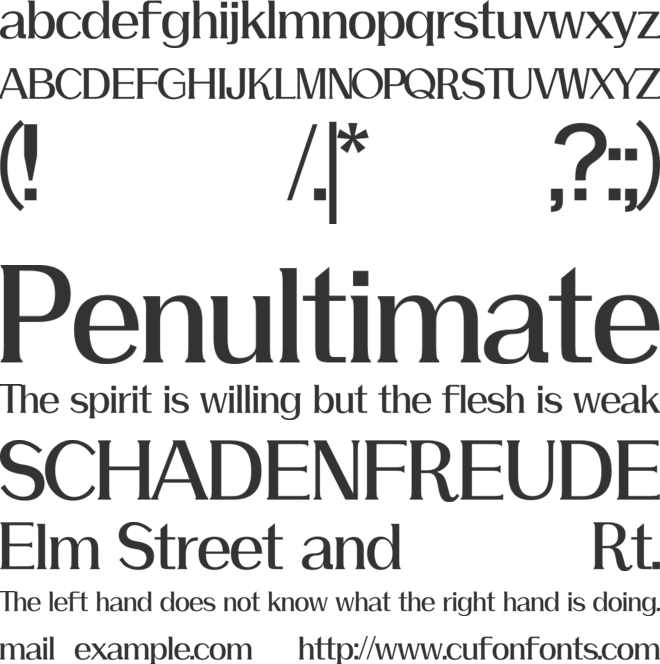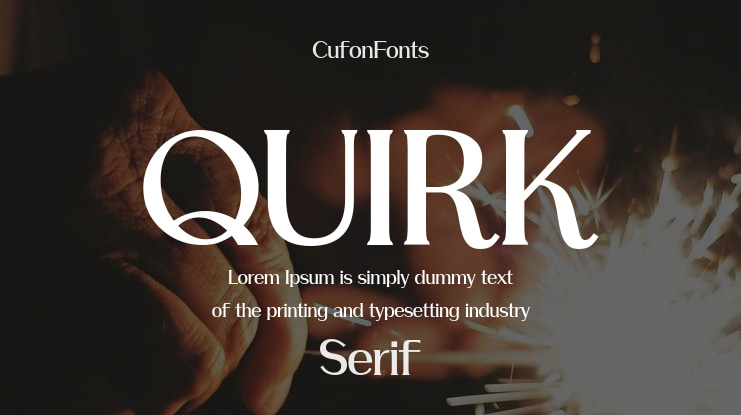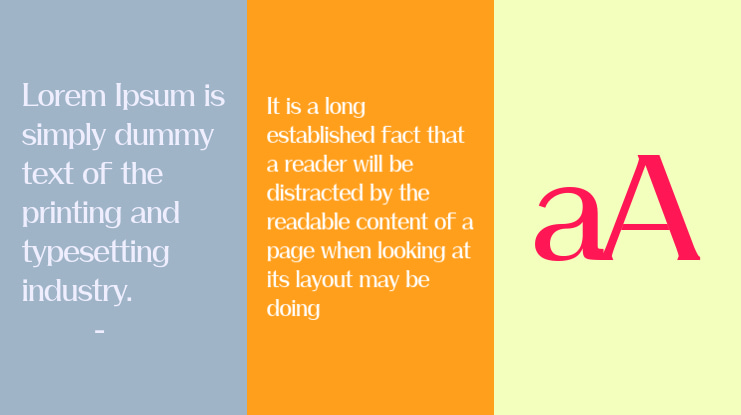
QUIRK Font Family
🎨 Font Name: QUIRK by Minimalist Art Studio
🎨 Font Description: QUIRK is a stylish serif with minimalist flair and editorial edge, perfect for fashion branding and modern design narratives.